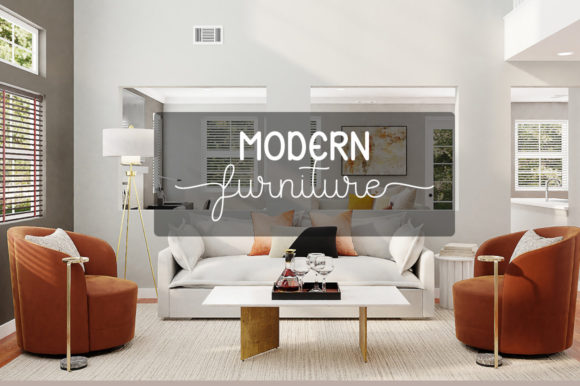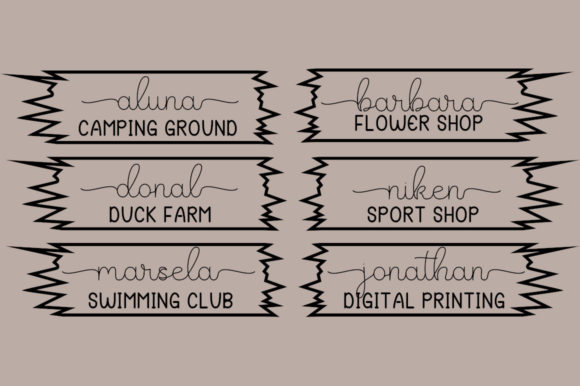
Sweet Boba Font
db-ku.com - Script & Handwritten -- Sweet Boba is a duo handwritten font that can produce a harmonious writing design. Is very suitable for use in logo designing, web posting, crafting, and many more.